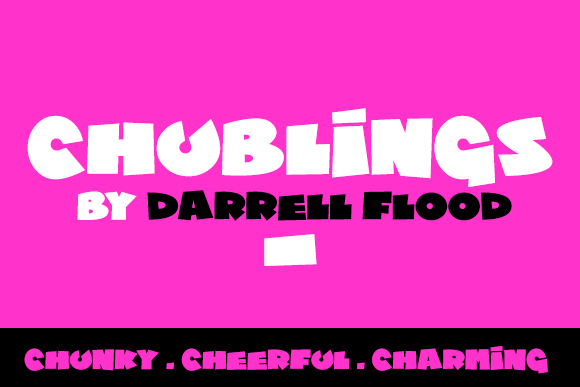
Introducing Chublings Font: The Ultimate Display Font for Cartoon and Comic Themes
Are you a designer or crafter looking for a unique and playful font to add some personality to your projects? Look no further than Chublings Font! This adorable, chunky, and curvy font is perfect for cartoon and comic themes, but its versatility means you can use it in a wide range of creative endeavors. In this article, we’ll explore the features and benefits of Chublings Font, and show you how to make the most of this fun sans serif display font.
What is Chublings Font?
Chublings Font is a display font created by Darrell Flood, a talented designer with a passion for typography. This font is characterized by its cute, chunky, and curvy design, making it perfect for adding a touch of whimsy and playfulness to your projects. With its sans serif design, Chublings Font is easy to read and understand, making it ideal for use in a variety of contexts, from children’s books and comics to posters, flyers, and more.
Key Features of Chublings Font
So, what makes Chublings Font so special? Here are just a few of its key features:
• Cute and playful design: Chublings Font is designed to be fun and engaging, making it perfect for projects that require a playful touch.
• Chunky and curvy: The font’s chunky and curvy design makes it easy to read and adds a touch of personality to your text.
• Sans serif design: The sans serif design of Chublings Font makes it easy to read and understand, even at small sizes.
• Versatile: While Chublings Font is perfect for cartoon and comic themes, its versatility means you can use it in a wide range of creative projects.
How to Use Chublings Font
So, how can you use Chublings Font in your projects? Here are just a few ideas to get you started:
• Cartoon and comic themes: Chublings Font is perfect for use in cartoon and comic themes, adding a touch of playfulness and personality to your characters and storylines.
• Children’s books and educational materials: The font’s cute and playful design makes it ideal for use in children’s books and educational materials, such as alphabet charts and activity sheets.
• Posters and flyers: Chublings Font is perfect for use in posters and flyers, adding a touch of personality and whimsy to your marketing materials.
• Crafting and DIY projects: If you’re a crafter or DIY enthusiast, Chublings Font is a great addition to your font collection. Use it to add a personal touch to your projects, such as handmade cards and gift tags.
Why Choose Chublings Font?
So, why should you choose Chublings Font for your next project? Here are just a few reasons:
• Unique and playful design: Chublings Font is a one-of-a-kind font that will add a touch of personality to your projects.
• Easy to read and understand: The font’s sans serif design makes it easy to read and understand, even at small sizes.
• Versatile: Chublings Font can be used in a wide range of creative projects, from cartoon and comic themes to posters, flyers, and more.
• High-quality design: Chublings Font is designed by Darrell Flood, a talented designer with a passion for typography.